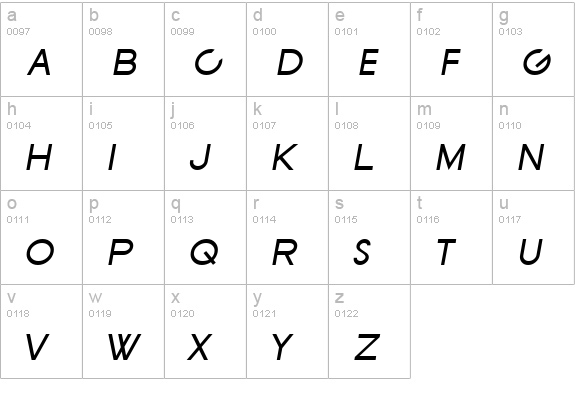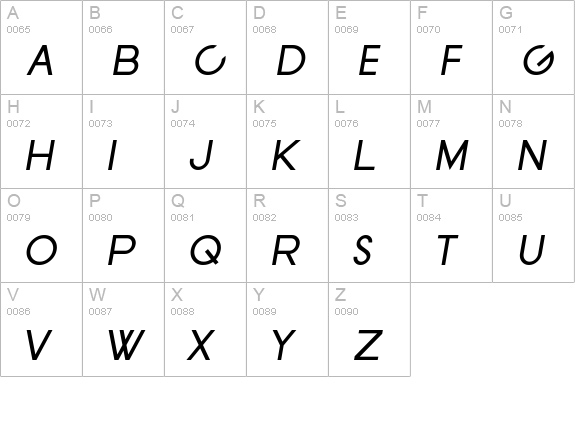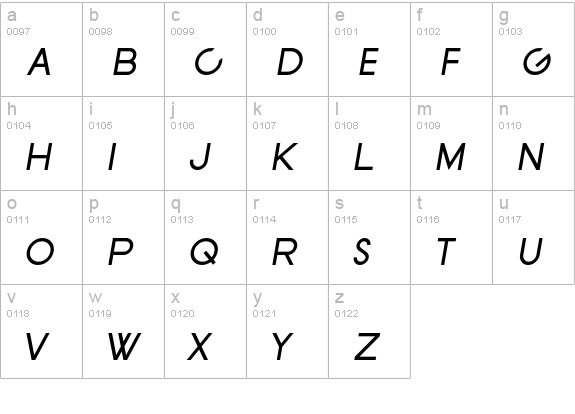
SF New Republic SC Italic Font Details
SF New Republic SC Italic is a distinctive, italic variant in the SF typeface family \xE2\x80\x94 well suited to design and typography projects.
Introducing SF New Republic SC Italic, a striking and innovative font that seamlessly combines modernity with sophistication. Designed for those seeking a font that exudes elegance and refinement, SF New Republic SC Italic is the perfect choice for various creative projects. With its sleek and stylish curves, this font captures attention and adds a touch of class to any design. Its italicized form adds a sense of dynamism and movement, making it ideal for conveying energy and vitality. Whether you're creating a logo, designing a website, or crafting eye-catching social media posts, SF New Republic SC Italic will elevate your work to new heights. But what truly sets SF New Republic SC Italic apart is its availability for free download at FontsMarket.com. Yes, that's right – this premium font can be yours at absolutely no cost. Embracing the spirit of accessibility and inclusivity, SF New Republic SC Italic allows designers of all levels to access its full potential without breaking the bank. Not only does SF New Republic SC Italic offer exceptional visual appeal, but it also guarantees ease of use. Its carefully crafted letterforms ensure legibility while maintaining a sense of uniqueness. This font truly embodies versatility, effortlessly adapting to various design styles and contexts. Embrace the power of SF New Republic SC Italic and let your creativity soar. Download this extraordinary font for free at FontsMarket.com and unlock a world of possibilities. Whether you're a professional designer or an aspiring creative, SF New Republic SC Italic will undoubtedly become an invaluable asset in your typographic arsenal. Elevate your designs, captivate your audience, and make a lasting impression with SF New Republic SC Italic.